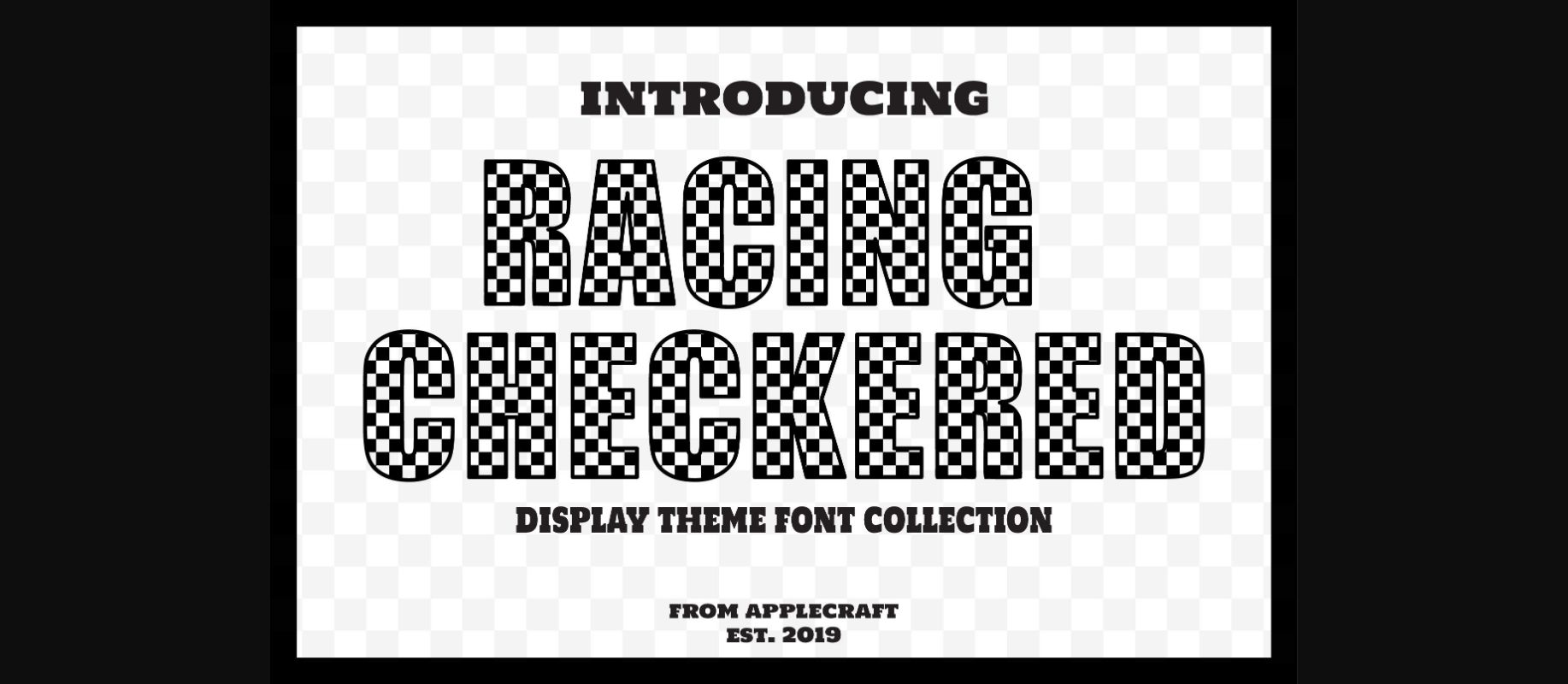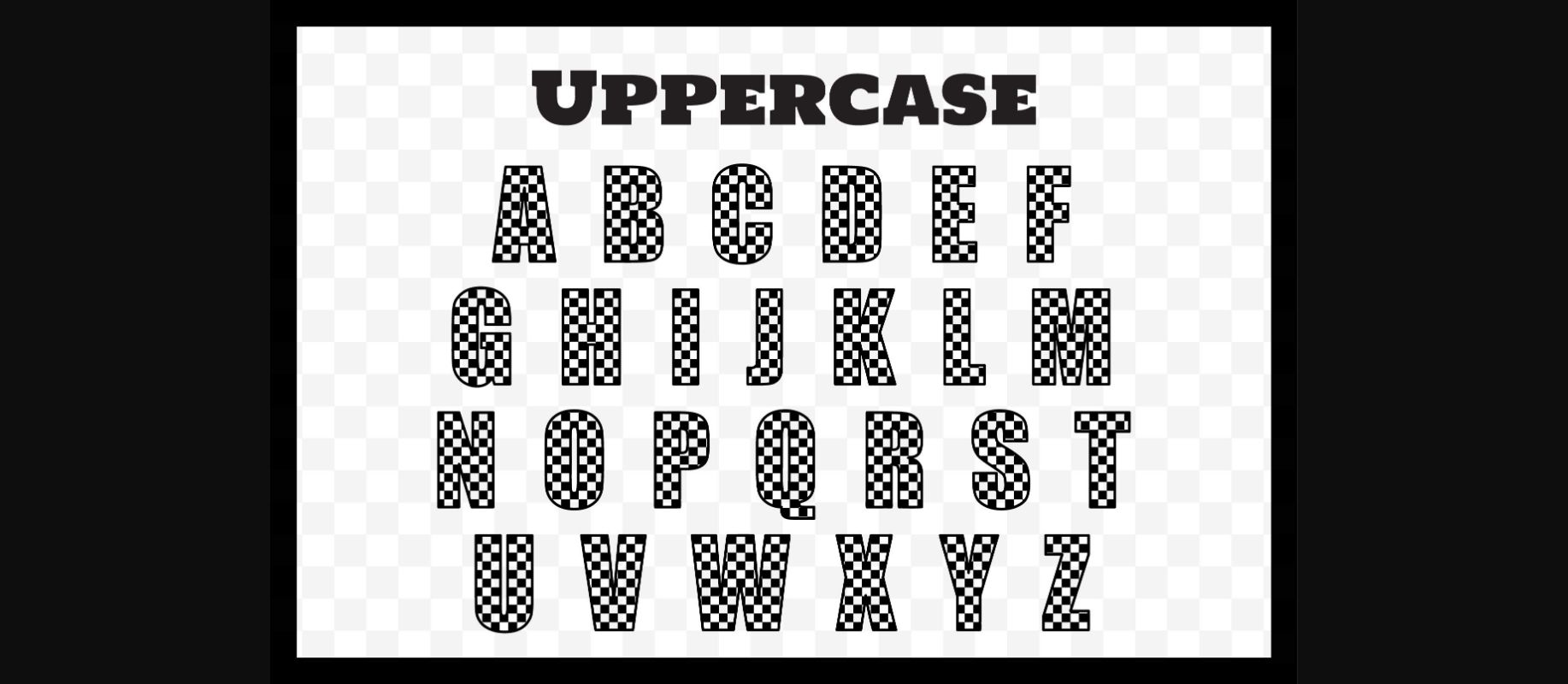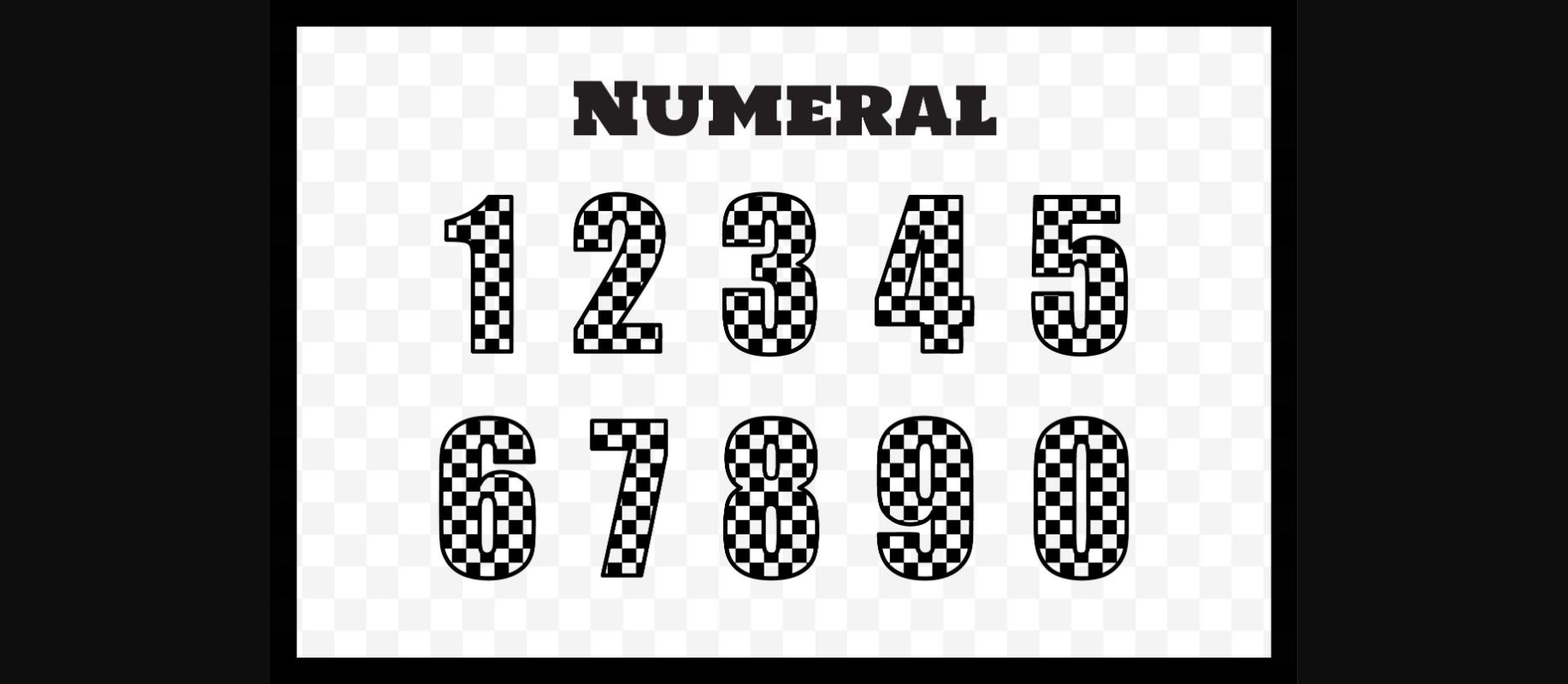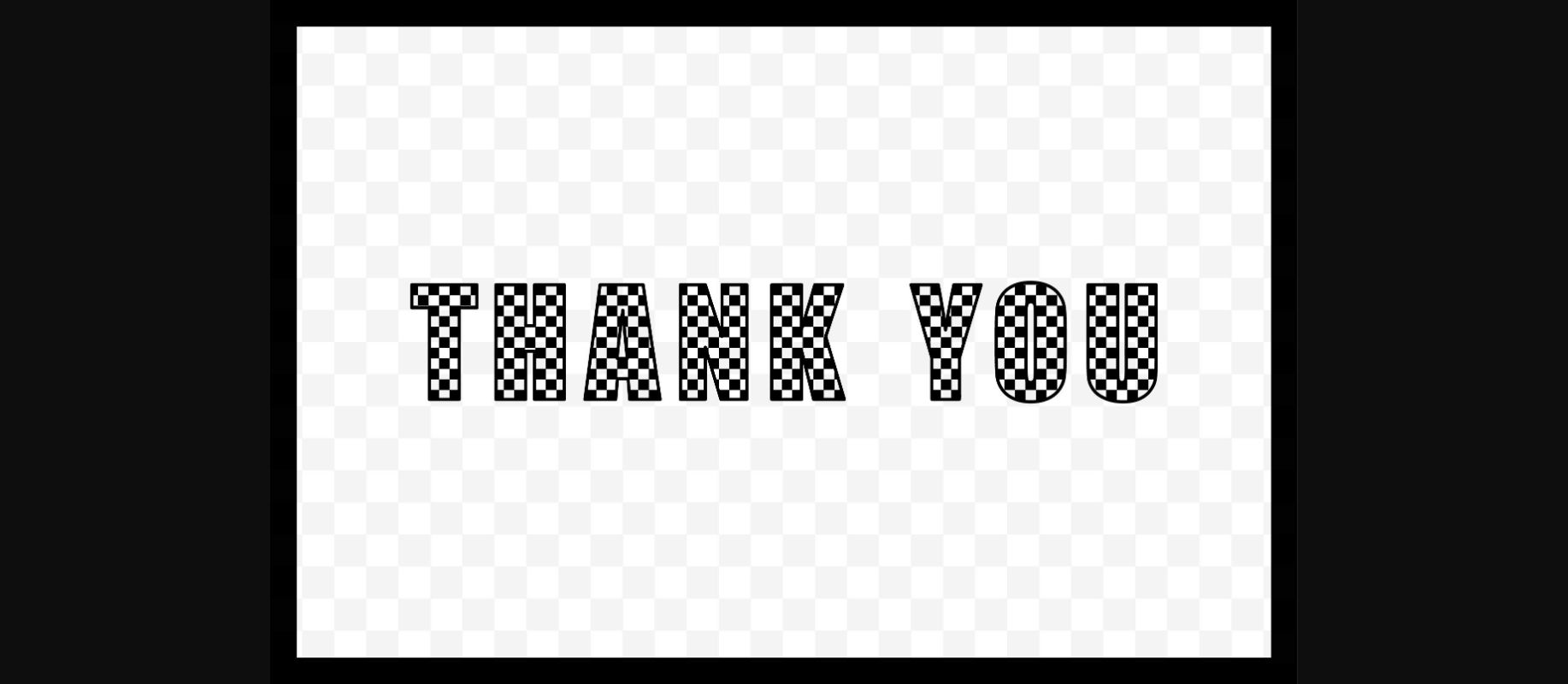
Racing Checkered Font
About Racing Checkered Font
The capital/lowercase letters are the same.
This cool decorative font is perfect for quotes, shirt designs, websites, branding, children’s designs, SVG designs, blogs, logos, invitations, and more!